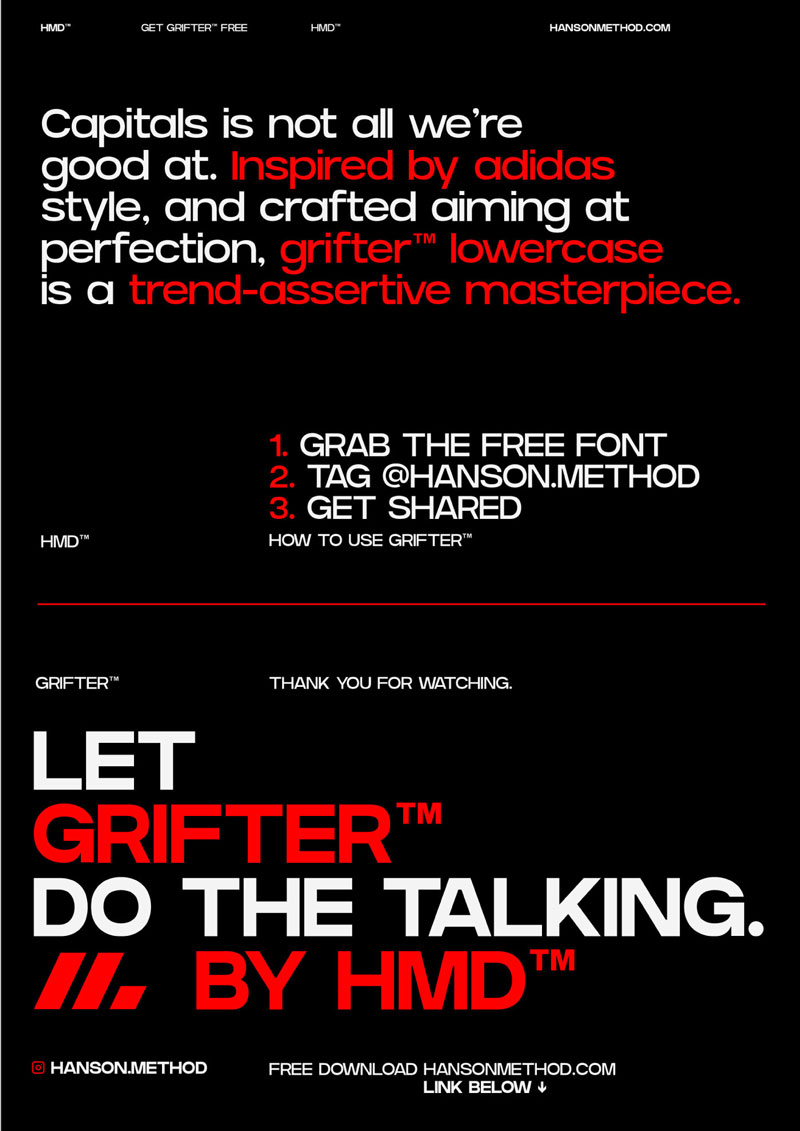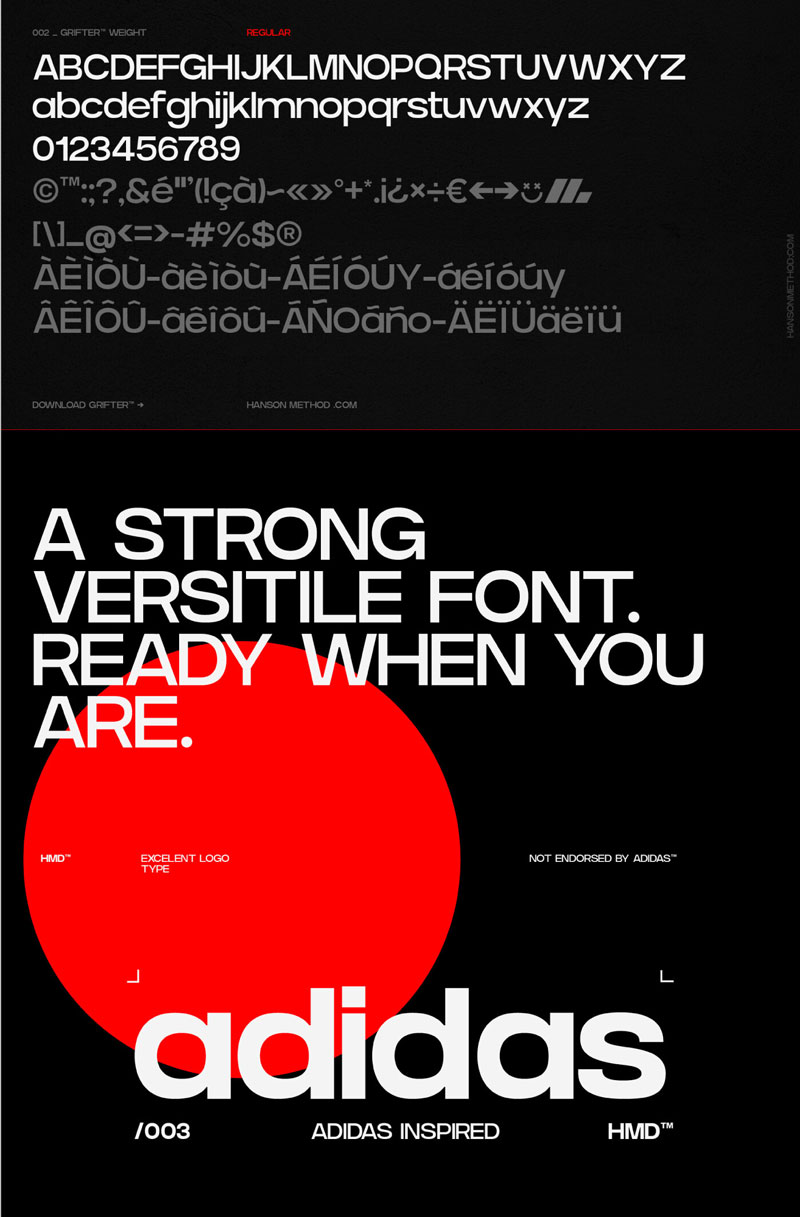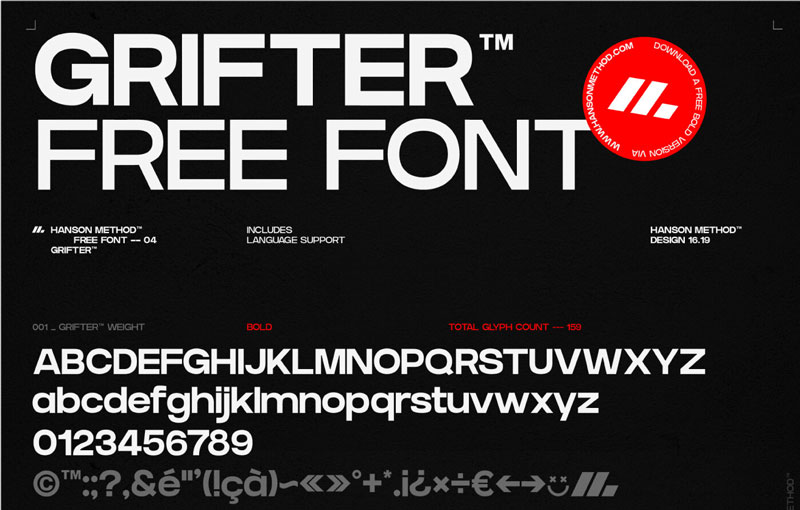
Grifter Bold – Strong Sans Serif Font
Grifter Bold, from Hanson Method™, is a strong, assertive, and stylish typeface that can be used in a variety of designs. This typeface includes; uppercase, lowercase, numerals, symbols, and is multilingual.